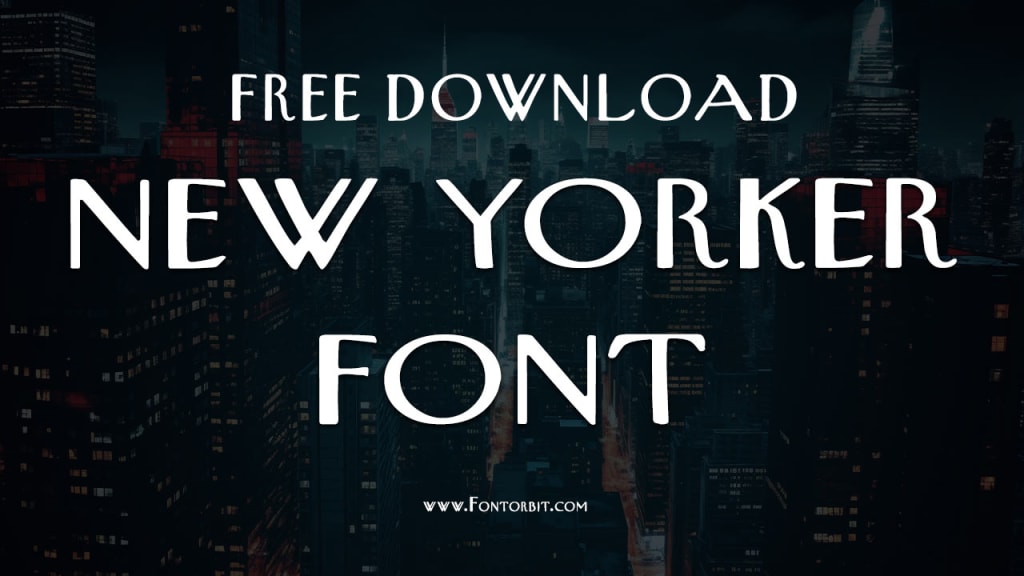
New Yorker Font: A Timeless Typographic Icon
New Yorker Font
Typography plays an integral role in design and communication, where the choice of a typeface can define the tone, emotion, and readability of a piece.
One such font that has stood the test of time is the New Yorker Font, a classic typeface associated with sophistication, elegance, and a touch of nostalgia. In this article, we delve into the history, design features, applications, and significance of the New Yorker Font.
History and Origins
The New Yorker Font traces its origins back to the iconic magazine The New Yorker, established in 1925. The typeface used in the magazine’s logo and titles became instantly recognizable due to its distinct Art Deco style, which perfectly captured the zeitgeist of the early 20th century. The font reflects the cultural dynamism and artistic flair of New York City during this era.
While the exact typeface used in the original magazine logo was custom-designed, modern interpretations and replicas of the New Yorker Font have been developed for digital use. These fonts aim to emulate the elegant curves and bold strokes of the original design.
Design Characteristics
The New Yorker Font is known for its:
Art Deco Influence: Featuring geometric forms and stylish flourishes that evoke the 1920s and 1930s design aesthetic.
Serif Style: Distinctive serifs that add character and sophistication.
Bold Letterforms: Thick strokes and consistent spacing make it highly legible while retaining a decorative appeal.
Versatility: Suitable for both headlines and body text, though it’s most often used for titles or logos.
Applications
The New Yorker Font’s timeless charm makes it suitable for a variety of applications, including:
Editorial Design: Used prominently in magazines, newspapers, and books to convey an air of authority and elegance.
Branding and Logos: Ideal for businesses aiming to project sophistication and creativity.
Event Invitations: Perfect for invitations to cultural or formal events.
Digital Media: Adds a classic touch to websites, blogs, and social media graphics.
Posters and Advertising: Creates an eye-catching and stylish impression.
Significance in Modern Design
Despite its vintage roots, the New Yorker Font remains relevant in modern design. Its association with high culture and its ability to convey sophistication make it a favorite among designers seeking a timeless aesthetic. The font’s adaptability across various mediums ensures its continued popularity.
Conclusion
The New Yorker Font is more than just a typeface; it is a cultural icon that embodies elegance, history, and versatility. Its Art Deco-inspired design resonates with audiences, making it a preferred choice for projects that demand a blend of sophistication and charm. Whether you’re designing a magazine, branding a business, or creating digital content, the New Yorker Font offers a timeless solution.
FAQs About New Yorker Font
1. What is the New Yorker Font?
The New Yorker Font is a typeface inspired by the typography used in The New Yorker magazine. It is known for its Art Deco style and elegant design.
5. What makes the New Yorker Font unique?
Its unique combination of Art Deco influences, bold serifs, and geometric forms set it apart as a timeless and sophisticated typeface.